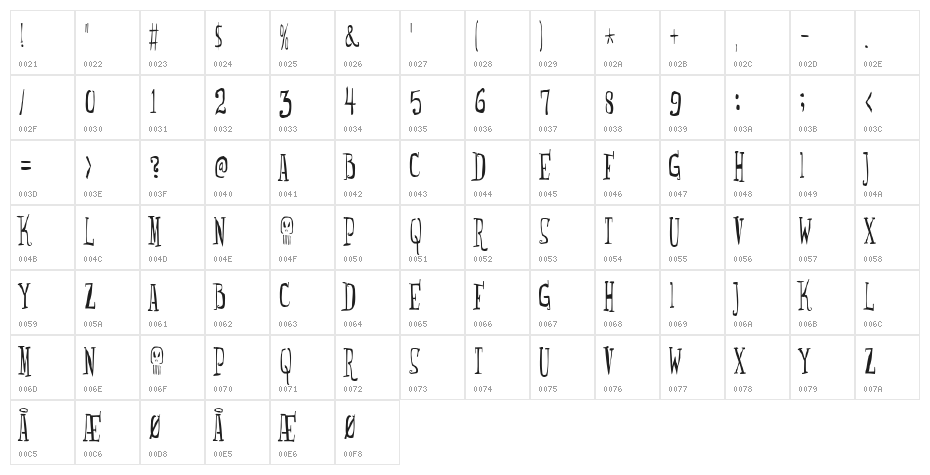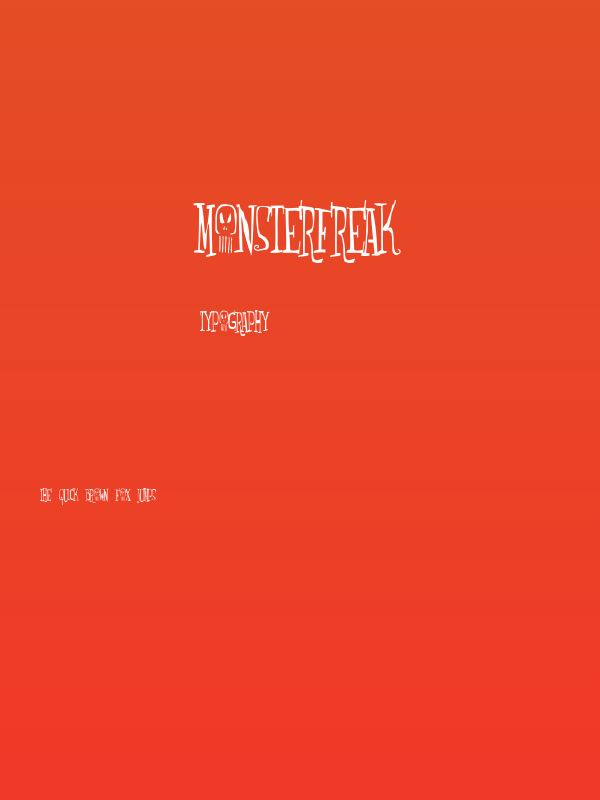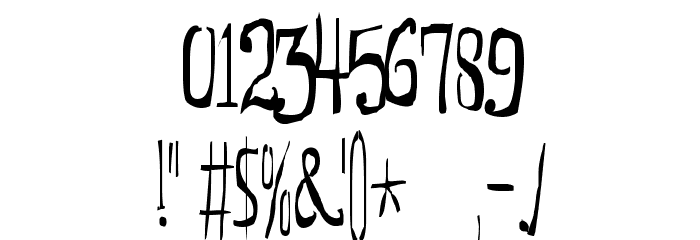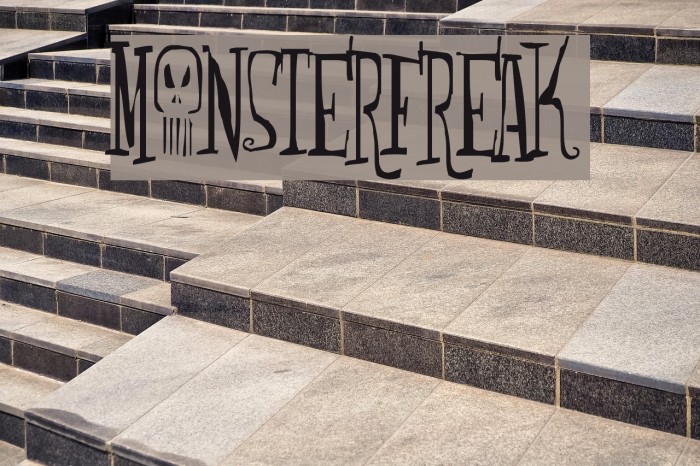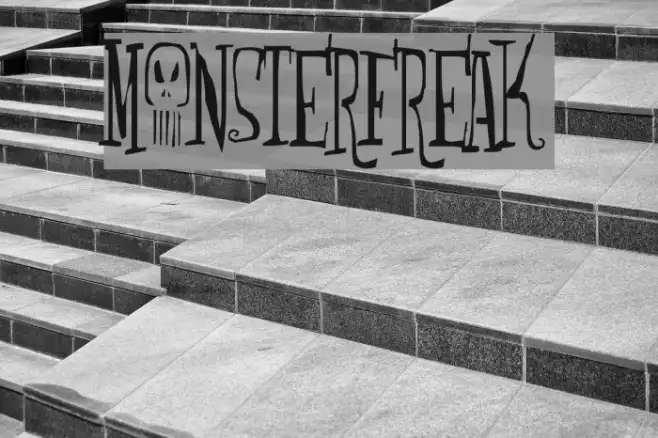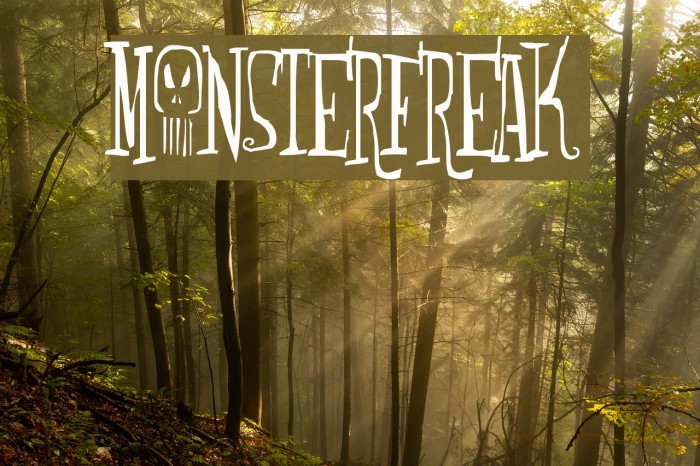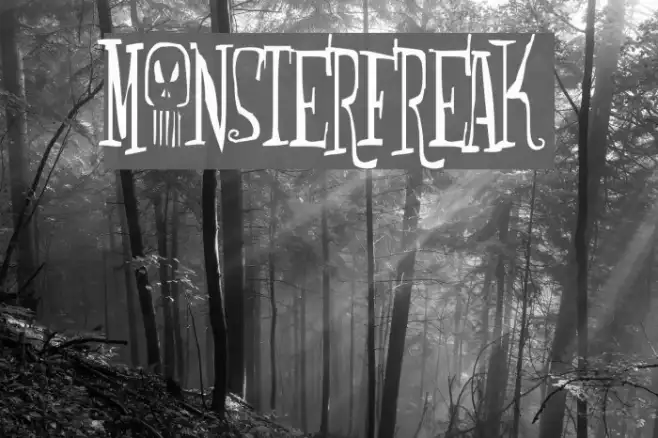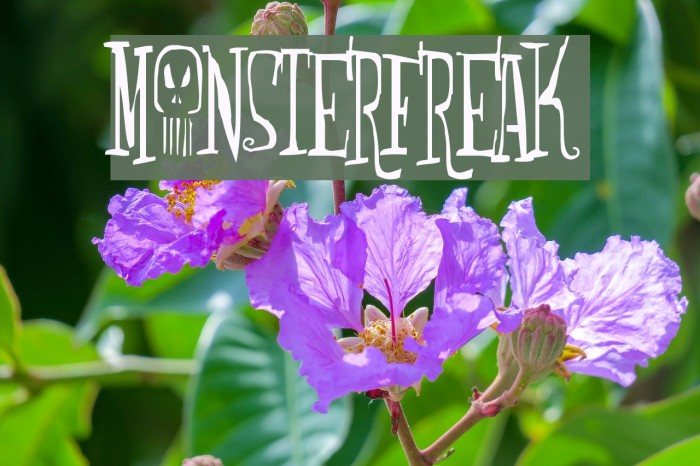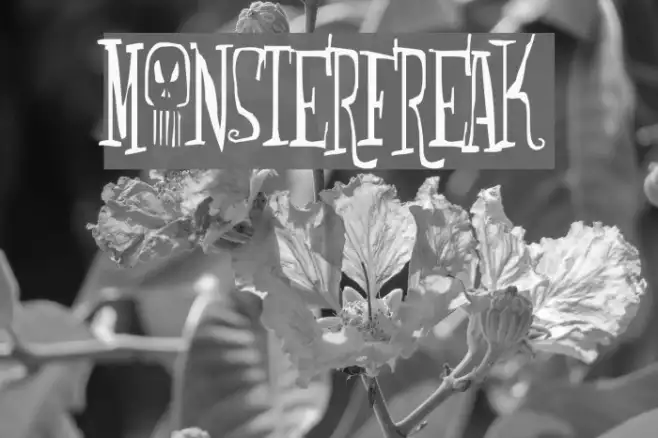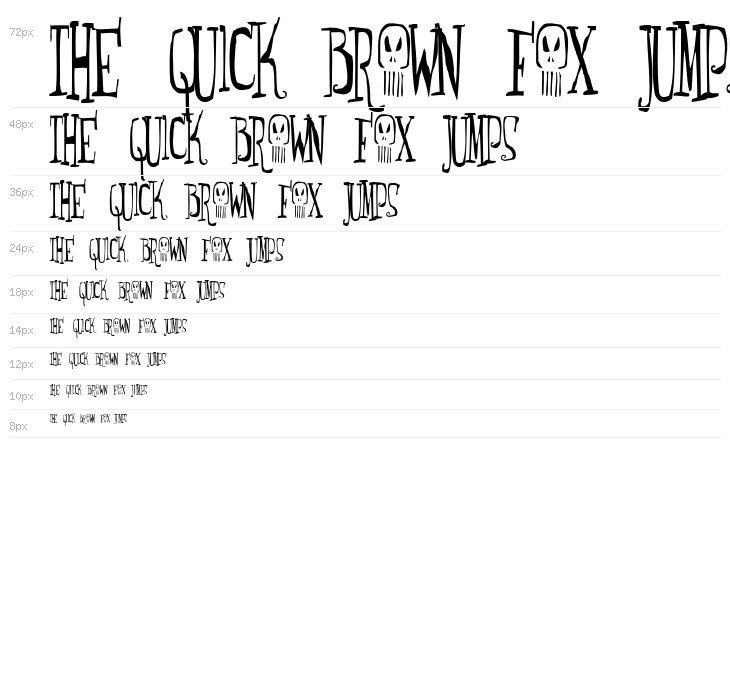
Monsterfreak Font
Monsterfreak Description
This font features a bold and quirky design with elongated and irregular letterforms that give it a playful and eerie appearance. The uppercase letters are tall and narrow, with some characters incorporating unique elements, such as a skull motif within the letter 'O'. The lowercase letters maintain a similar style, ensuring consistency across the typeface. Numbers and special characters follow the same whimsical and slightly spooky aesthetic, making the font ideal for themes that require a touch of the unusual or fantastical. The overall style is decorative and eye-catching, perfect for grabbing attention.
| Use Case | Headlines, Posters, Themed Events |
| Proposed Projects | Ideal for Halloween-themed designs, horror movie posters, spooky invitations, or any project needing a whimsical, eerie touch. |